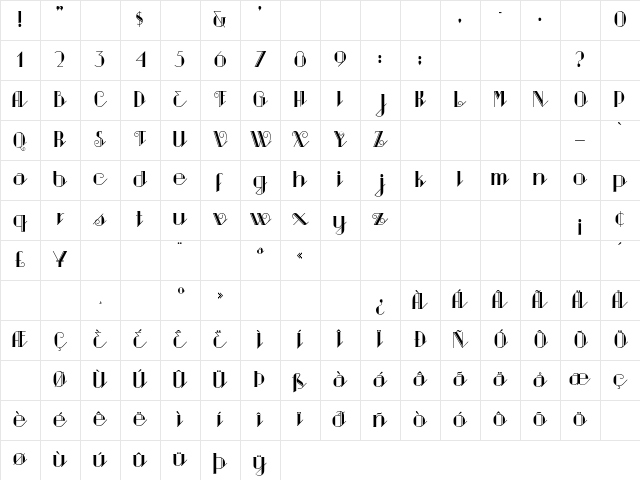
Sarsaparilla Regular
Design Context for Sarsaparilla
Sarsaparilla is a composed and adaptable typeface that performs quietly and consistently across a wide range of design contexts.